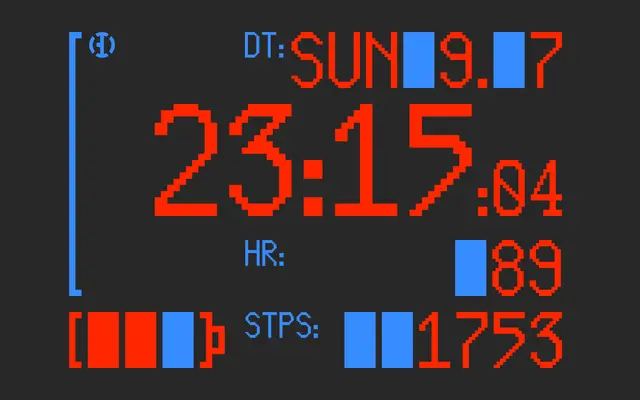
BD Cashbox
Type Different · 2001
A monospaced typeface modelled on cash register receipt printing, originally created in 2001 and expanded in 2022 with dot-matrix and typewriter-style variants.
Designed originally for a book on money and value, this fixed-width face mimics the output of thermal receipt printers. The 2022 update broadened the glyph set and introduced two additional styles: DotMatrix, referencing needle-print output, and Letter, suggesting typewriter impression. Coverage spans over twenty Latin-based languages across Western and Northern Europe.
A monospaced typeface modelled on cash slip receipt printing, with additional styles referencing dot-matrix and typewriter output. Clearly a fixed-width display/novelty mono.